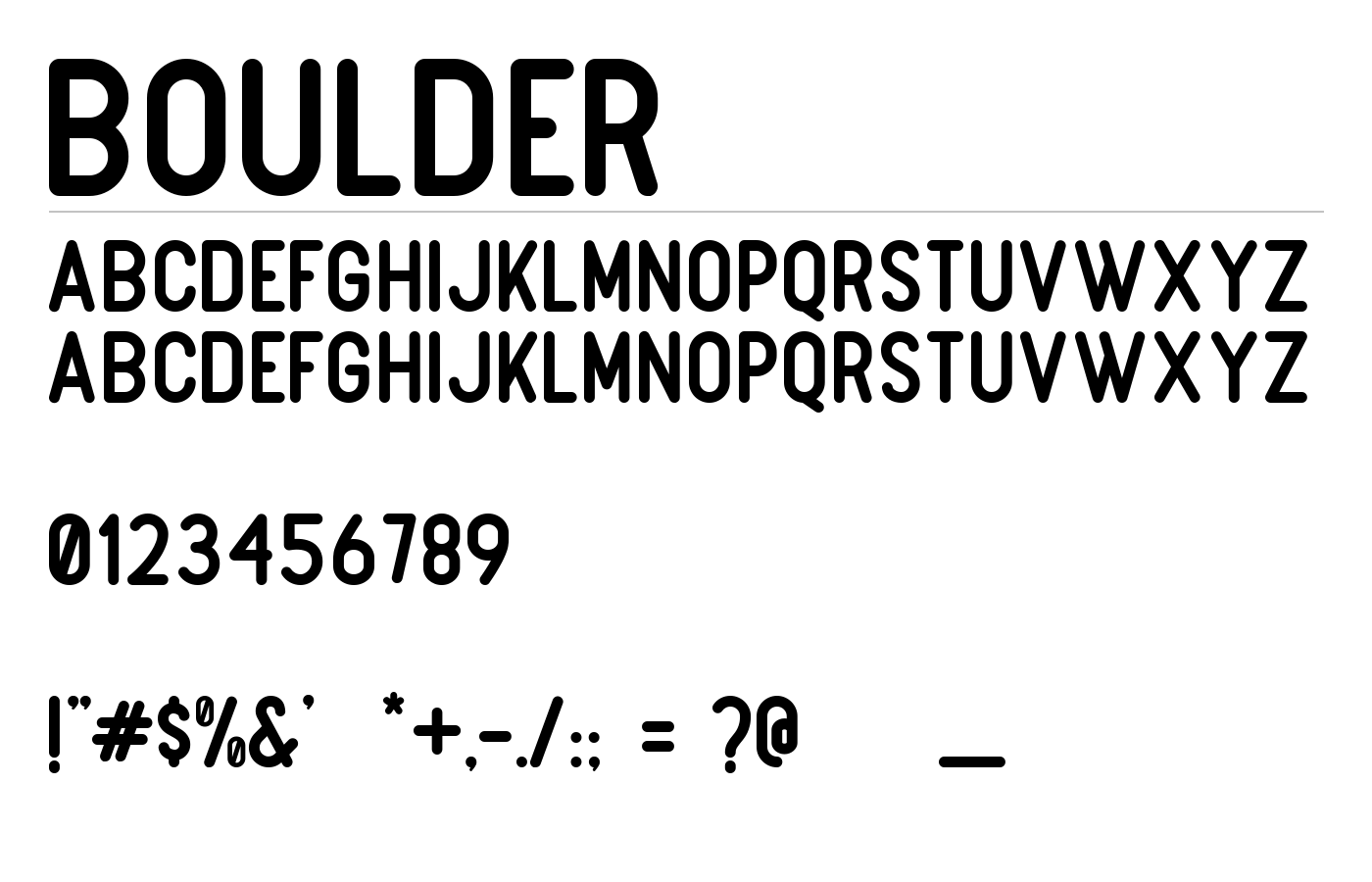
Boulder is a modern, condensed sans serif font with a clean, geometric feel and rounded edges that add warmth and approachability. Its medium weight and tall x-height ensure strong legibility, making it ideal for bold headlines, branding, and contemporary design projects that seek a friendly yet professional tone. This font's streamlined shape and distinct letterforms work well in tech, lifestyle, and editorial contexts where clarity and style are essential.
Boulder Font
About Boulder Font
| Font family | Boulder Font |
| Designer | Angin Studio |